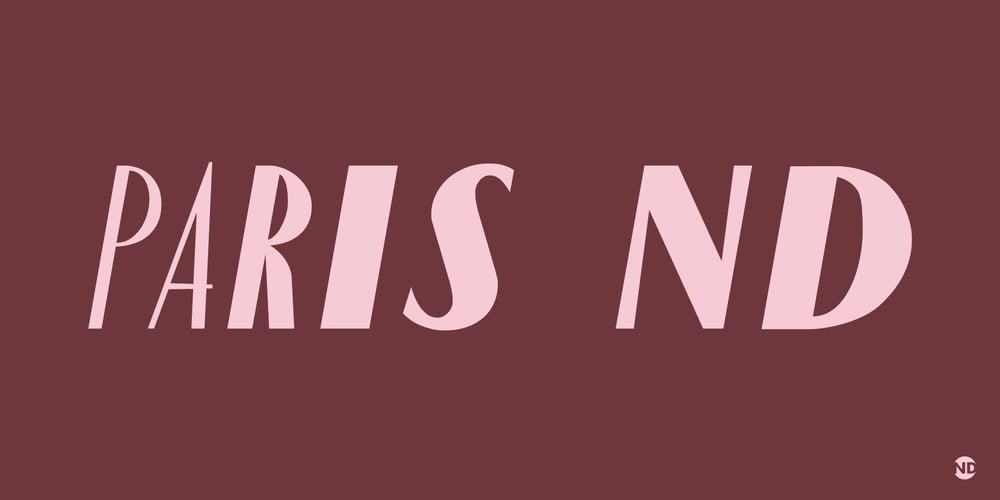
Paris ND Font Family was designed by Enric Crous-Vidal and published by Neufville Digital. Paris ND contains 3 styles and family package options. Paris was designed by Crous-Vidal in 1953 and is part of the Grafía Latina collection. Paris Bold originally had two alternative capital letters O, one with pronounced 45° stress; they are both incorporated in the ND version.París is a Trademark of BauerTypes SL